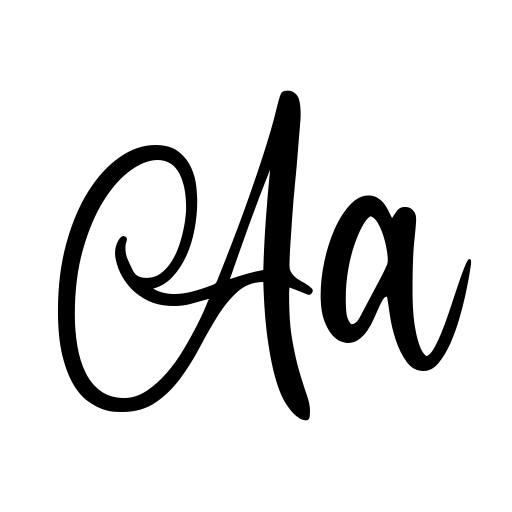
Aurora Sunshine is a lively, handwritten script font with a casual yet confident feel. Its bold strokes and slightly condensed letterforms give it a friendly and approachable personality, perfect for creative branding, invitations, and fun editorial projects. This font works well where a personal, energetic touch is desired without compromising readability.
Aurora Sunshine Font
About Aurora Sunshine Font
| Font family | Aurora Sunshine Font |
| Designer | Muhammad Hisyam Rivai |